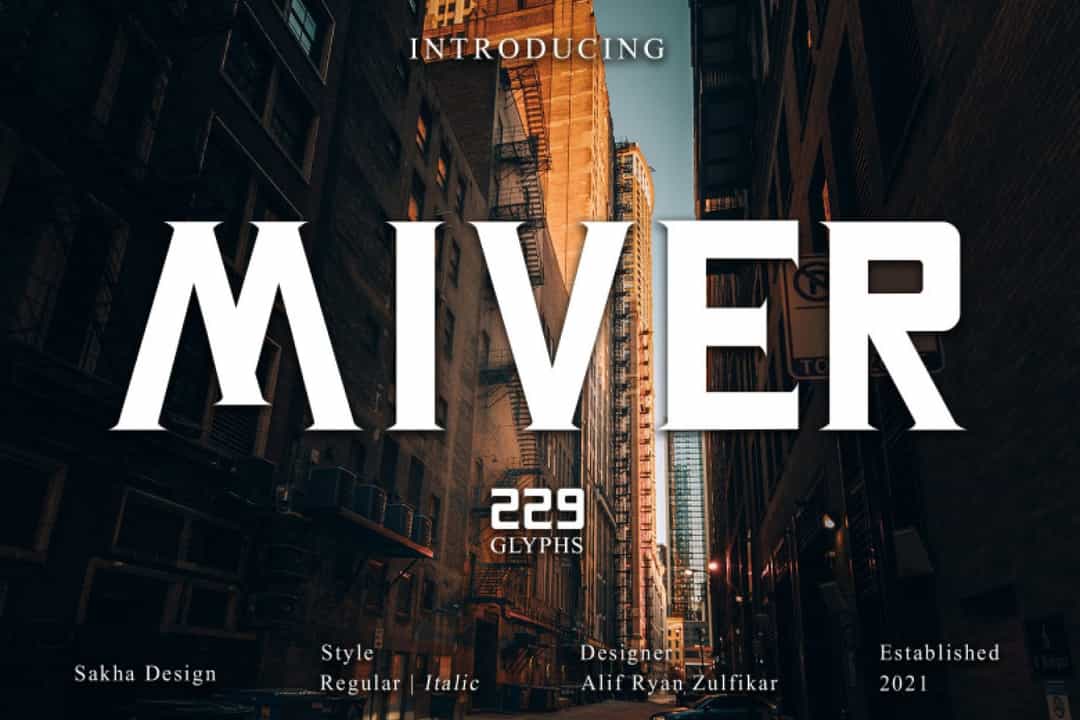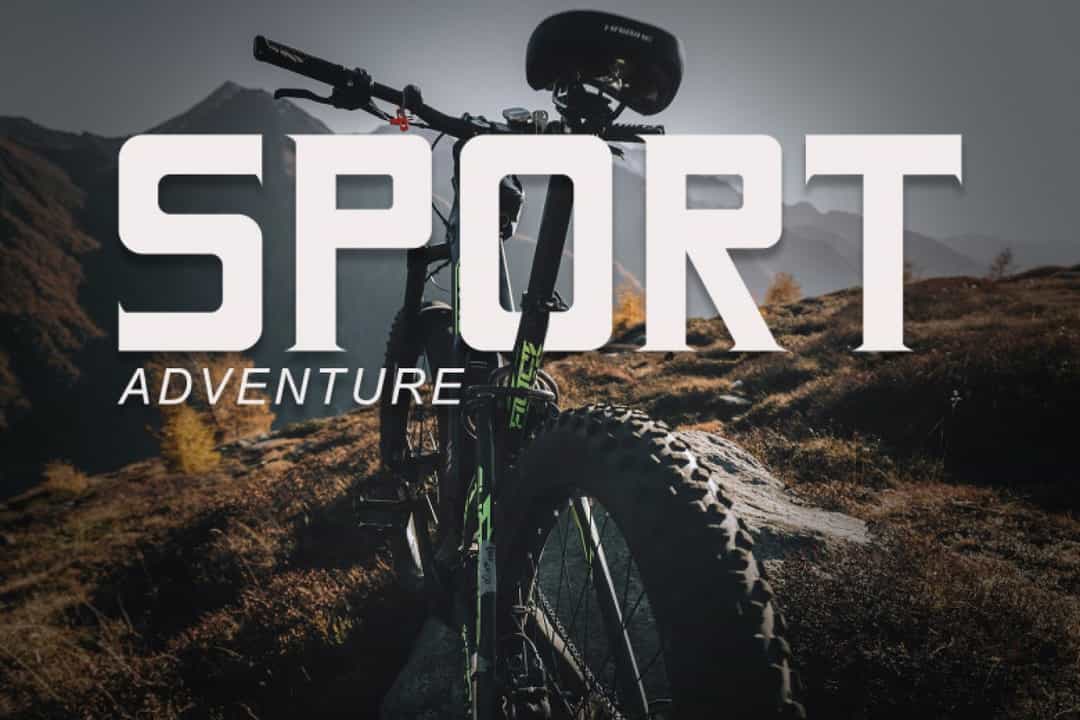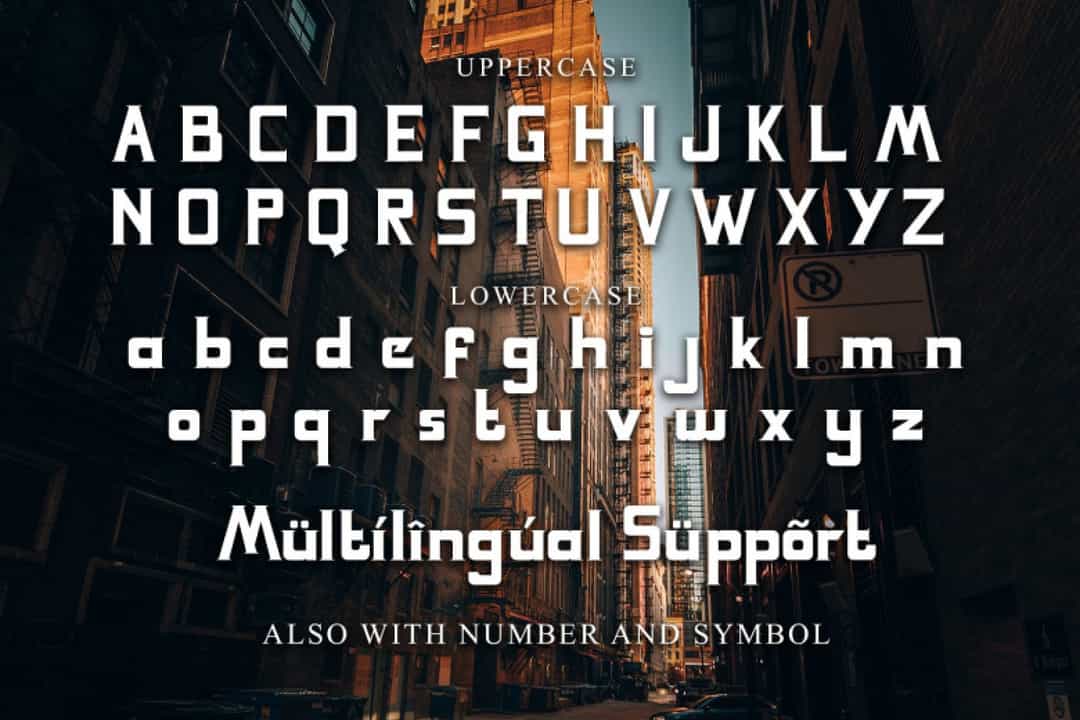
Miver is an eye-catching serif font. No matter the topic or project at hand, Miver can make any work more attractive with its bold yet thickly-spelled serif letters. Ideal for headlines, logos, invitations, magazines books packaging design branding and much more!